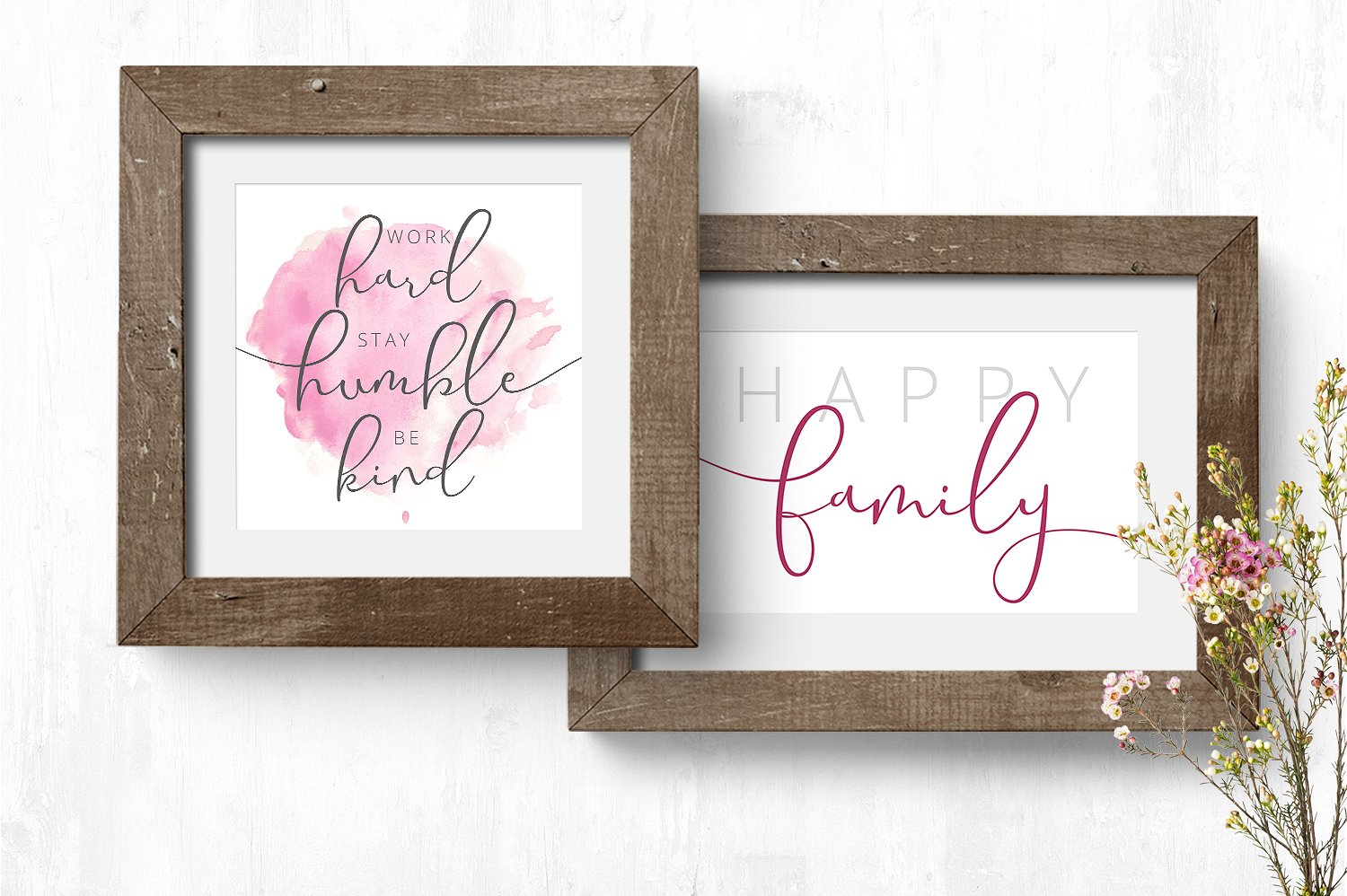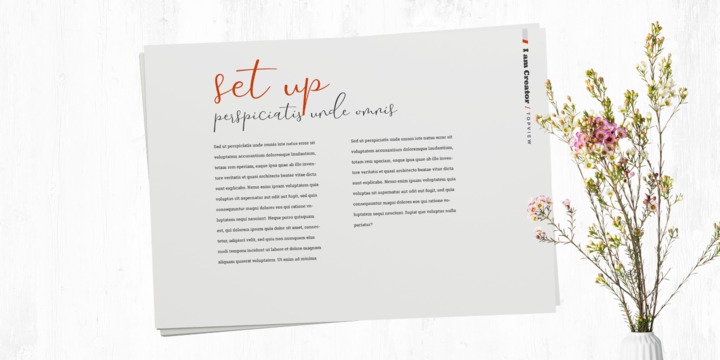
Creativefabrica Yolan Script Font SVG. Please, talk with the author for commercial use or for any support. This is a new font script with a unique and thin style. Use it to add a contemporary charm to any design idea! Juni fadil putra took the charge for designing it and releasing it via fadeline studio during march 2018. Feb 2, 2020 by free fonts leave a comment. Introducing yolan unique font, it is was designed and shares by fadeline. Introducing yolan unique font, it is was designed and shares by fadeline. Yolan script font is a handwritten font that has elegant clean texture. Yolan script demo is the perfect font for all your fun designs. Introducing yolan unique font, it is was designed and shares by fadeline. This is a new font script with a unique and. Yolan script demo is free for personal use only. Yolan is a unique and organic handwritten font with a light feel. You can use this font for personal purpose. This is a new font script with a unique and thin style.
Yolan Unique Font Free Fonts Script Handwritten Pixelify Net. This is a new font script with a unique and thin style. Feb 2, 2020 by free fonts leave a comment. Yolan script demo is the perfect font for all your fun designs. This is a new font script with a unique and thin style. Juni fadil putra took the charge for designing it and releasing it via fadeline studio during march 2018. You can use this font for personal purpose. Yolan is a unique and organic handwritten font with a light feel. Please, talk with the author for commercial use or for any support. This is a new font script with a unique and. Yolan script demo is free for personal use only. Introducing yolan unique font, it is was designed and shares by fadeline. Introducing yolan unique font, it is was designed and shares by fadeline. Yolan script font is a handwritten font that has elegant clean texture. Introducing yolan unique font, it is was designed and shares by fadeline. Use it to add a contemporary charm to any design idea!
Script Fonts Modern Typeface Hand Drawn Fonts Design Lab. This is a new font script with a unique and thin style. Please, talk with the author for commercial use or for any support. Yolan script font is a handwritten font that has elegant clean texture. Introducing yolan unique font, it is was designed and shares by fadeline. Use it to add a contemporary charm to any design idea! This is a new font script with a unique and thin style. Yolan script demo is free for personal use only. Yolan is a unique and organic handwritten font with a light feel. You can use this font for personal purpose. This is a new font script with a unique and. Yolan script demo is the perfect font for all your fun designs. Juni fadil putra took the charge for designing it and releasing it via fadeline studio during march 2018. Introducing yolan unique font, it is was designed and shares by fadeline. Introducing yolan unique font, it is was designed and shares by fadeline. Feb 2, 2020 by free fonts leave a comment.
Yolan Unique Font Byfadeline Studio Free Download Psdly Psdly. Please, talk with the author for commercial use or for any support. Introducing yolan unique font, it is was designed and shares by fadeline. Yolan is a unique and organic handwritten font with a light feel. Yolan script font is a handwritten font that has elegant clean texture. Juni fadil putra took the charge for designing it and releasing it via fadeline studio during march 2018. Feb 2, 2020 by free fonts leave a comment. Yolan script demo is the perfect font for all your fun designs. This is a new font script with a unique and. Yolan script demo is free for personal use only. This is a new font script with a unique and thin style. Use it to add a contemporary charm to any design idea! This is a new font script with a unique and thin style. Introducing yolan unique font, it is was designed and shares by fadeline. You can use this font for personal purpose. Introducing yolan unique font, it is was designed and shares by fadeline.
Yolan Unique Font Free Fonts Script Handwritten Pixelify Net. Introducing yolan unique font, it is was designed and shares by fadeline. Use it to add a contemporary charm to any design idea! Feb 2, 2020 by free fonts leave a comment. Yolan script demo is the perfect font for all your fun designs. Yolan is a unique and organic handwritten font with a light feel. You can use this font for personal purpose. This is a new font script with a unique and thin style. Introducing yolan unique font, it is was designed and shares by fadeline. Juni fadil putra took the charge for designing it and releasing it via fadeline studio during march 2018. Yolan script font is a handwritten font that has elegant clean texture. Introducing yolan unique font, it is was designed and shares by fadeline. This is a new font script with a unique and. Please, talk with the author for commercial use or for any support. Yolan script demo is free for personal use only.
Top 78 Free Modern Hand Writing Fonts For Designers Geethemes. Yolan script demo is the perfect font for all your fun designs. Juni fadil putra took the charge for designing it and releasing it via fadeline studio during march 2018. You can use this font for personal purpose. Yolan script font is a handwritten font that has elegant clean texture. Please, talk with the author for commercial use or for any support. Feb 2, 2020 by free fonts leave a comment. Introducing yolan unique font, it is was designed and shares by fadeline. Introducing yolan unique font, it is was designed and shares by fadeline. Introducing yolan unique font, it is was designed and shares by fadeline. Use it to add a contemporary charm to any design idea! Yolan is a unique and organic handwritten font with a light feel. This is a new font script with a unique and thin style. Yolan script demo is free for personal use only. This is a new font script with a unique and thin style. This is a new font script with a unique and.
Yolan Script Font Free Download Dafont Free. Introducing yolan unique font, it is was designed and shares by fadeline. Feb 2, 2020 by free fonts leave a comment. Introducing yolan unique font, it is was designed and shares by fadeline. Yolan script demo is the perfect font for all your fun designs. Introducing yolan unique font, it is was designed and shares by fadeline. This is a new font script with a unique and thin style. You can use this font for personal purpose. This is a new font script with a unique and thin style. Please, talk with the author for commercial use or for any support. Juni fadil putra took the charge for designing it and releasing it via fadeline studio during march 2018. Use it to add a contemporary charm to any design idea! Yolan is a unique and organic handwritten font with a light feel. Yolan script font is a handwritten font that has elegant clean texture. This is a new font script with a unique and. Yolan script demo is free for personal use only.
Stunning Script Fonts Creative Market. Yolan script font is a handwritten font that has elegant clean texture. You can use this font for personal purpose. Introducing yolan unique font, it is was designed and shares by fadeline. Yolan is a unique and organic handwritten font with a light feel. This is a new font script with a unique and. Yolan script demo is the perfect font for all your fun designs. Introducing yolan unique font, it is was designed and shares by fadeline. This is a new font script with a unique and thin style. Introducing yolan unique font, it is was designed and shares by fadeline. Juni fadil putra took the charge for designing it and releasing it via fadeline studio during march 2018. Use it to add a contemporary charm to any design idea! Yolan script demo is free for personal use only. Please, talk with the author for commercial use or for any support. Feb 2, 2020 by free fonts leave a comment.
Similar fonts for yolan script regular ttf (400) from myfonts.com. Font awesome, material design icons, octicons, & more. This tutorial video looks at font creation for conlang scripts, as well as introductions to unicode, the private use area, and a basic birdfont tutorial. New headline font for uefa europa league. Please, talk with the author for commercial use or for any support. Introducing yolan unique font, it is was designed and shares by fadeline. Some scripts are more formal like elegant calligraphy, while others are casual like cursive handwriting. This is a new font script with a unique and thin style. Featuring the impressive free yolan unique font. Download noelan script font with script style.